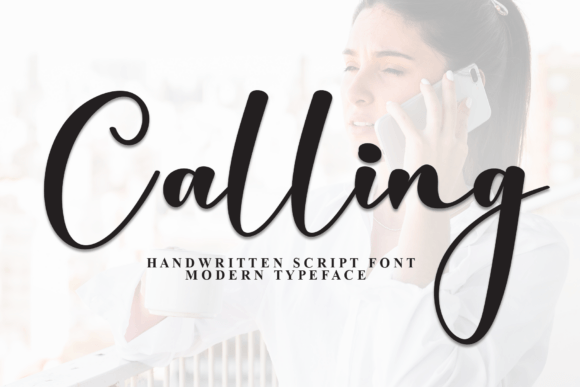
The Perfect Font for a Personal Touch: A Deep Dive into Calling Font
I’ll never forget the time I was working on a wedding invitation project, and my client asked for a font that would make the invitation feel like it was written in their own hand. I spent hours scouring the internet for the perfect match, but nothing seemed quite right. That was until I stumbled upon Calling Font, a bold handwritten font that features thick, expressive strokes and a casual, friendly style. Its unique characters give it a personal touch, making it perfect for invitations, quotes, or any design that needs a lively, informal feel.
An Honest Review of Calling Font
- ✨ Unique and Personal Touch: Calling Font’s distinctive characters make it stand out from other handwritten fonts. It’s like having a personal friend write out your message!
- ✅ Ease of Use: This font is incredibly easy to read, even in smaller sizes, making it perfect for a variety of design projects.
- 💕 Emotional Connection: The casual, friendly style of Calling Font helps create an emotional connection with your audience, making your designs feel more approachable and relatable.
While Calling Font is an amazing addition to any design project, there are a few things to keep in mind:
- 🤔 Legibility in Small Sizes: While generally easy to read, some of the characters can get a bit fuzzy when scaled down too far. It’s best used in larger sizes for maximum impact.
- ⚠️ Overuse: As with any bold font, it’s easy to overuse Calling Font. Balance it with simpler fonts to keep your design clean and effective.
The Backstory Behind Calling Font
Calling Font was designed with the intention of capturing the essence of handwritten notes in a digital format. The designer aimed to create a font that felt both casual and engaging, perfect for projects that needed a personal touch. The result is a font that feels like it was written by a friend, making it ideal for invitations, quotes, and more.
Q: What makes Calling Font unique?
A: Calling Font’s unique characters and bold, expressive strokes set it apart from other fonts, giving it a personal and friendly feel.
Q: Is Calling Font suitable for body text?
A: While Calling Font is easy to read, its bold nature makes it more suited for headings and short paragraphs. For longer body text, consider pairing it with a simpler font.
Q: Does Calling Font support OpenType features?
A: Yes, Calling Font supports OpenType features, including stylistic alternates and glyphs, allowing for a wide range of creative possibilities.